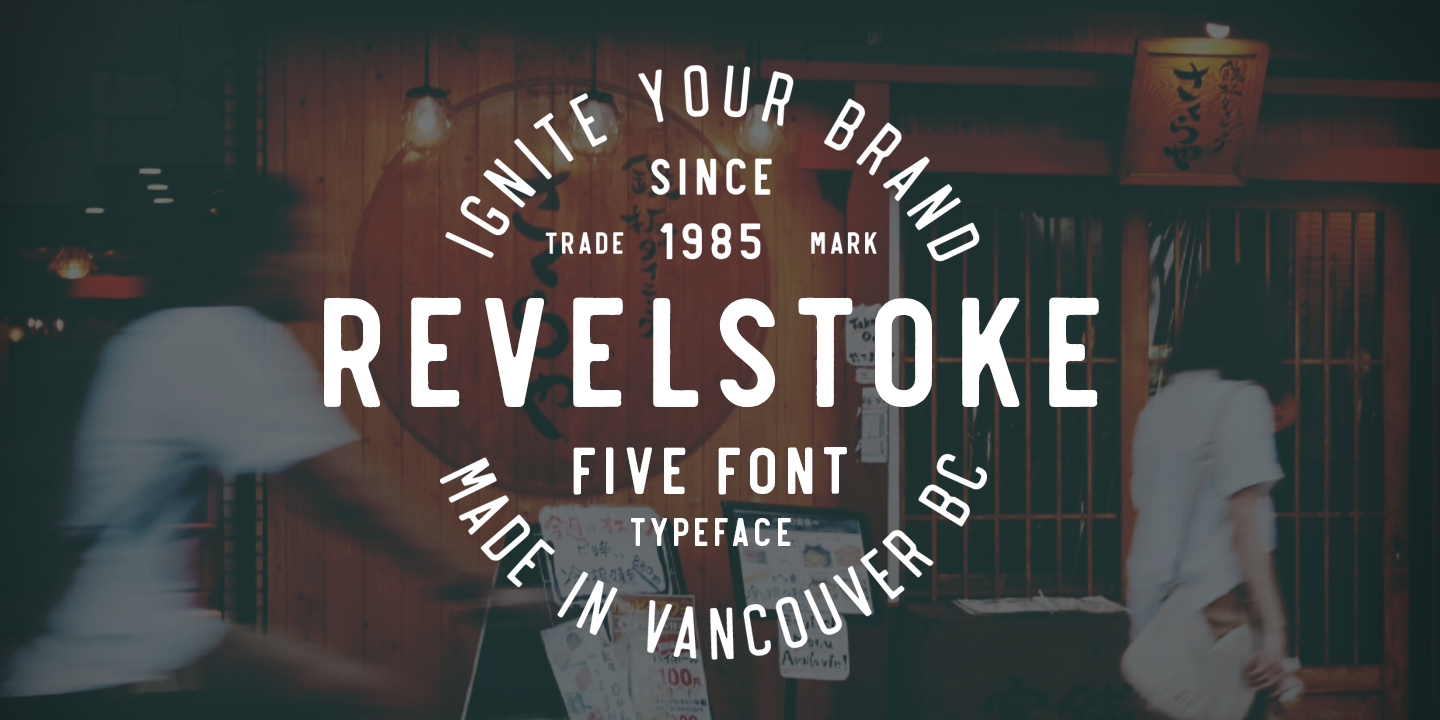
Revelstoke Font excels in various design applications including outdoor adventure branding, mountain resort logos, wilderness tourism materials, ski lodge signage, camping gear packaging, nature documentary titles, hiking trail maps, and outdoor sports advertisements. This rugged typeface adapts magnificently to both adventurous digital campaigns and expedition-ready print materials, making it perfect for designers seeking wilderness charm and outdoor authenticity.
Revelstoke Font generates excitement among creative professionals due to its mountainous character and adventurous styling that instantly conveys exploration and natural beauty. The font's sturdy letterforms and outdoor-inspired proportions create an immediate connection to wilderness adventures and mountain landscapes. Its rugged personality makes it particularly appealing for brands wanting to communicate adventure, durability, and outdoor heritage in their visual communications.
The Revelstoke Font family encompasses multiple weights and styles including Regular, Bold, Light, Condensed, and Rough variations. Each family member maintains adventurous design principles while offering distinct outdoor characteristics. The Light weight provides gentle mountain elegance for sophisticated outdoor applications, while the Rough version delivers weathered impact for authentic wilderness headlines and expedition materials.
Outdoor designers frequently choose Revelstoke Font Free Download for projects requiring both adventure authenticity and brand distinction. This typeface demonstrates remarkable versatility across outdoor industries including tourism, sporting goods, adventure travel, and environmental organizations. Its mountainous character allows brands to communicate exploration while maintaining excellent readability and rugged visual appeal that connects with adventure-seeking audiences.